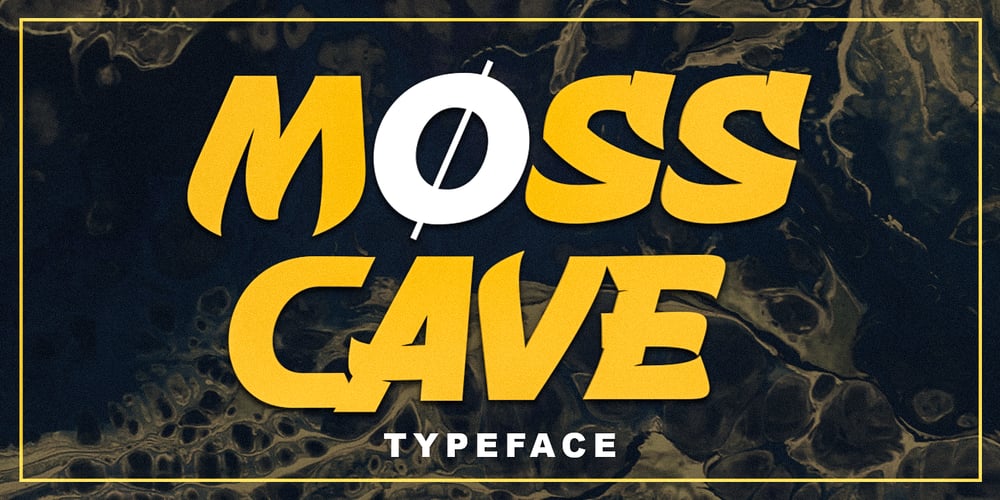
Mosscave Font Family was designed by Zahratul Laila and published by Dora Typefoundry. Mosscave contains 1 styles and family package options. Mosscave is designed to crate an impactful and stylish visual impression, combining attractive curves. Mosscave provides a style that is guaranteed to add a compelling appeal to your logo design, brand image, quotes, product packaging, merchandise, social media posts, and more! It also supports multilingual and PUA encoded!If you need anything else, just shoot me at the email at: doratypefoundry@gmail.comHope you enjoy it.